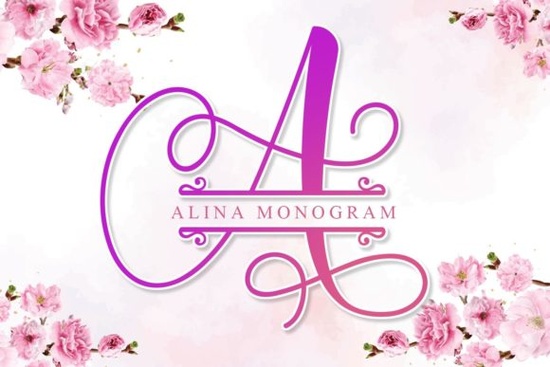
If you are looking for a typeface that adds a personal, hand-crafted touch to your wedding stationery or boutique branding, the Alina Monogram Font Font is a strong contender. It captures that authentic, hand-lettered aesthetic without looking messy or hard to read. This specific typeface is designed to bring a sense of warmth and elegance to your projects, making it a favorite among crafters and small business owners who want their designs to feel unique rather than generic.
When you download this file, you aren't just getting a standard alphabet; you are getting a tool that mimics the flow of a real pen on paper. The curves are smooth, and the varying stroke widths give it a dynamic look that static fonts often lack. Whether you are designing a logo for a new bakery or creating a custom greeting card for a friend, this font provides the decorative flair needed to make the design pop.
What kind of projects work best with this style?
Because of its decorative nature, this font shines in contexts where you want to convey sophistication or celebration. It is not typically used for long blocks of body text, but rather for headlines, monograms, and short phrases. Here are a few specific ways designers and hobbyists are using it:
- Wedding Invitations: The elegant curves make it perfect for the names of the bride and groom on save-the-dates and formal invites.
- Social Media Graphics: Use it for quote overlays on Instagram or Pinterest to catch the eye while scrolling.
- Print on Demand: If you sell t-shirts or tote bags, this font works well for short, inspirational quotes or boutique brand names.
- Stationery Art: Create beautiful watercolor backgrounds with this typography overlaid for wall art prints.
For those who enjoy using cutting machines like Cricut or Silhouette, this type of font is excellent. The lines are usually thick enough to cut cleanly out of vinyl or cardstock, allowing you to create physical decals and stickers with ease.
How do I pair it with other fonts?
A common mistake when using decorative script fonts is pairing them with other busy fonts. To let the Alina Monogram Font Font stand out, you should pair it with something simple. A clean sans-serif font works best for the supporting text. This creates a balance where the script acts as the "hero" of the design, and the simple font handles the details like dates, addresses, or descriptions.
If you are browsing through the collection of decorative fonts on the platform, you will notice that many successful designs follow this rule of contrast. By keeping the secondary text minimal, you ensure that the viewer's attention is drawn immediately to the monogram or main headline.
Additionally, because it includes uppercase and lowercase letters as well as numbers and punctuation, you have full control over your wording. You can write full sentences if needed, though it looks best when used sparingly. The ligatures (connected letters) often included in fonts like this help maintain the natural flow of handwriting, preventing the letters from looking like they are just sitting next to each other without touching.
Is this font right for my brand?
If your brand identity is modern, tech-focused, or industrial, this might not be the right fit. However, if your business revolves around lifestyle, beauty, handmade goods, or events, it is an excellent choice. It communicates a sense of care and attention to detail. Customers often associate this style of typography with high-quality, bespoke items.
For example, a candle maker labeling their jars or a florist designing their price lists can use this font to signal that their products are crafted with love. It adds a human element to digital or mass-produced items, which is a valuable trait in today's market.
Ultimately, choosing the right typography is about matching the mood of your message. If you want to feel charming, authentic, and slightly romantic, this font delivers on those promises without requiring you to be a professional calligrapher.
Quick Checklist for Using Script Fonts
Before you finalize your design file, run through this quick list to ensure your typography looks professional:
- Check the kerning: Ensure the space between letters looks natural and not too tight or too loose.
- Test readability: Step back from your screen. Can you read the text from a distance?
- Contrast check: Make sure the font color stands out clearly against your background image or color.